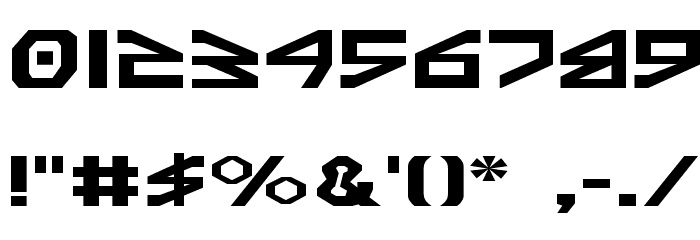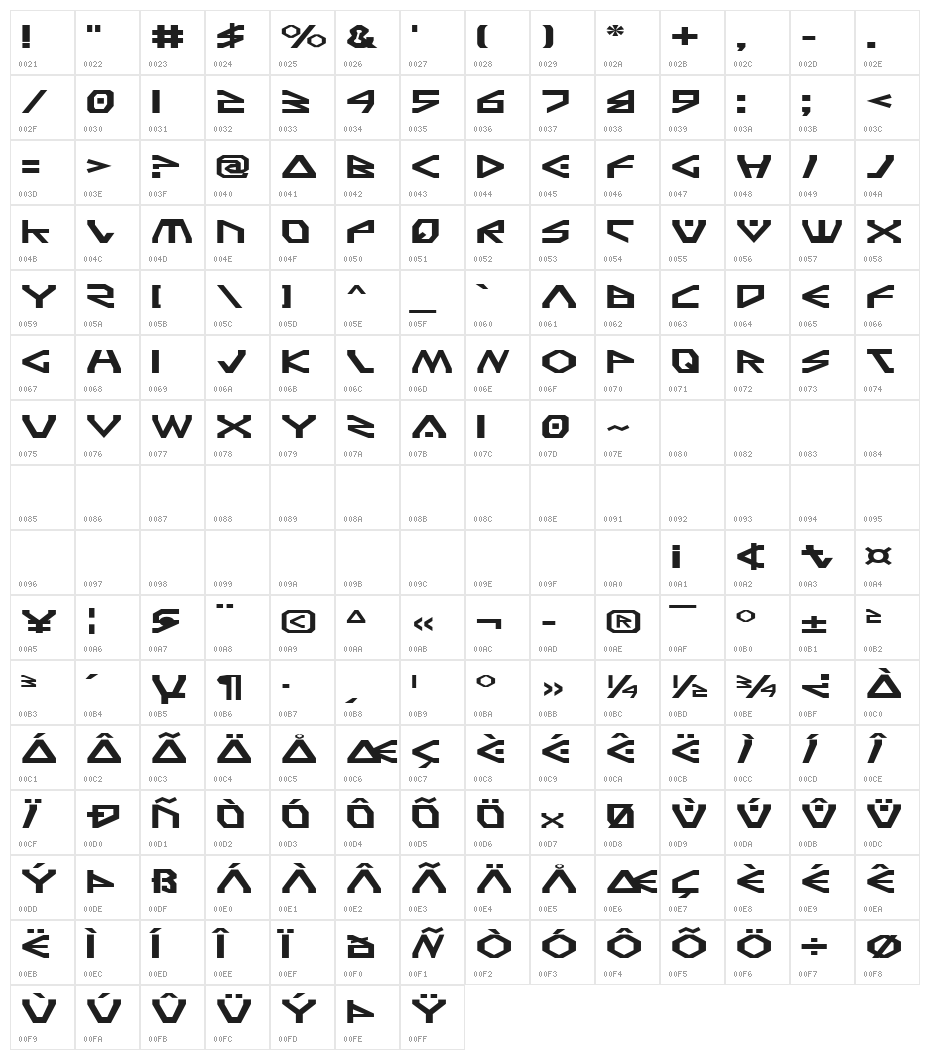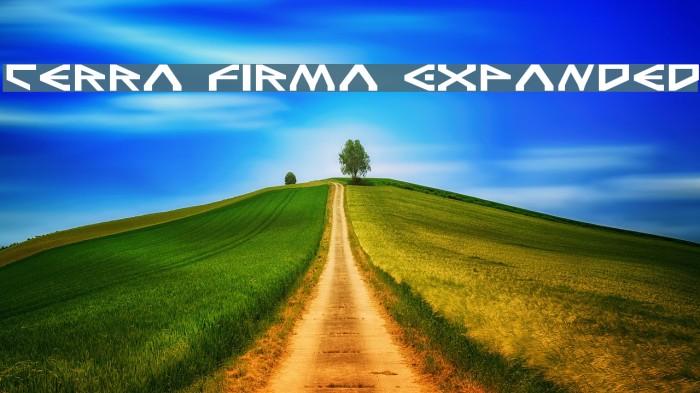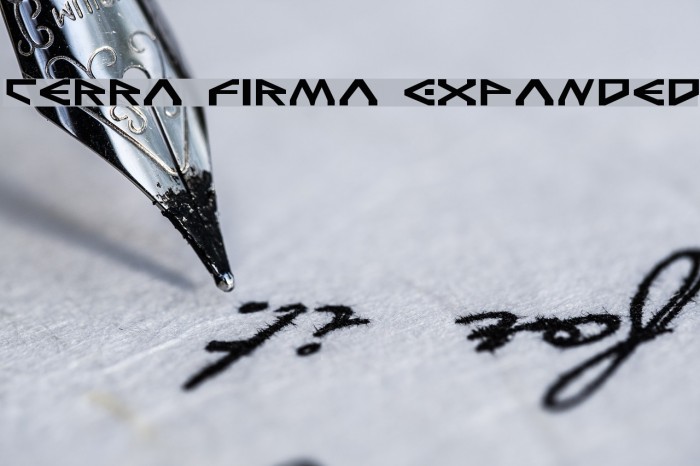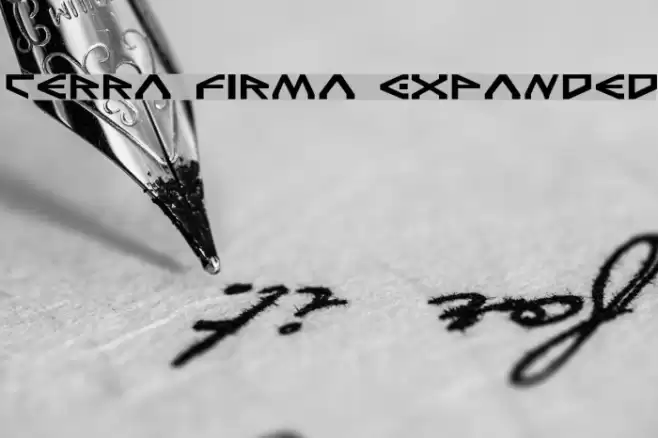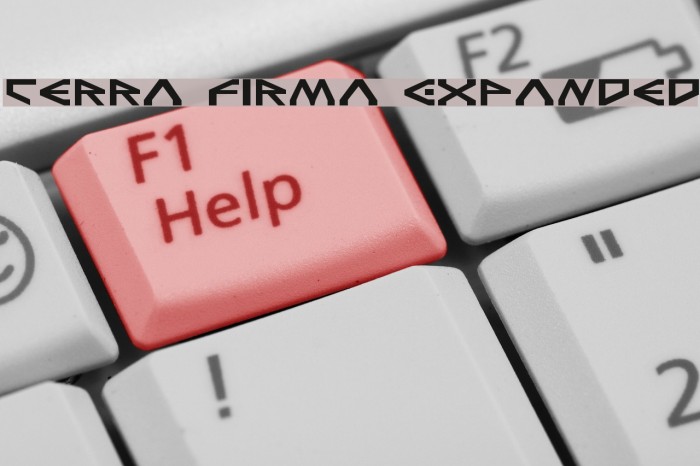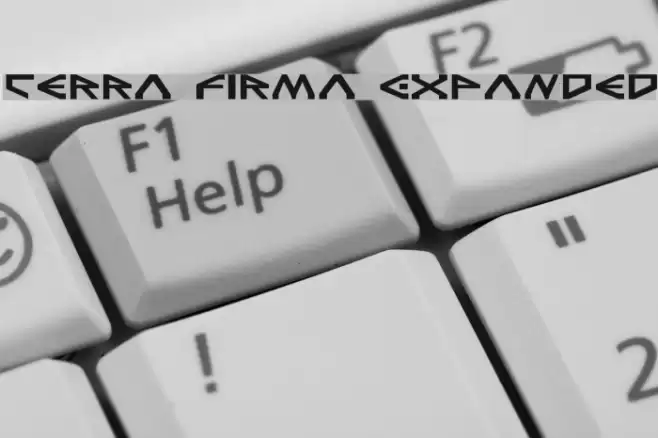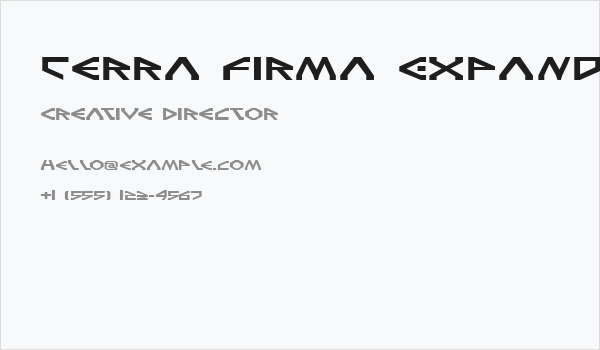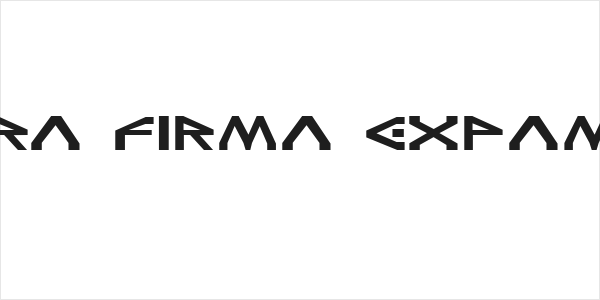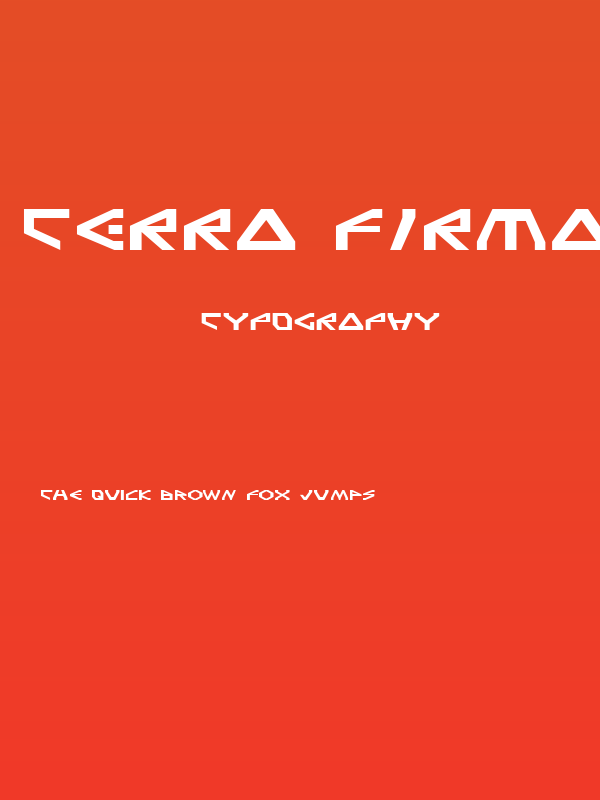
Terra Firma Expanded Font
Terra Firma Expanded Description
This font features a bold, geometric design with sharp angles and a futuristic aesthetic. Each character is constructed with thick, uniform strokes that create a sense of strength and stability. The uppercase and lowercase letters maintain a consistent style, with angular cuts and a slightly expanded width that gives the font a unique, modern appearance. The numbers and special characters follow the same design principles, ensuring a cohesive look across all elements. This font's distinctive style makes it ideal for projects that require a strong visual impact.
| Overall Style | Futuristic, Modern |
| Proposed Projects | Ideal for sci-fi themed posters, video game titles, branding for tech companies, and any project needing a modern, impactful typeface. |